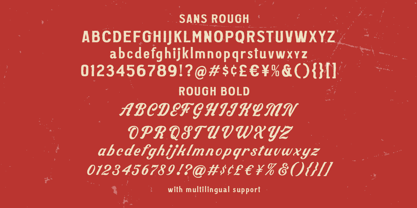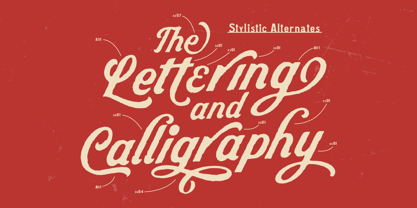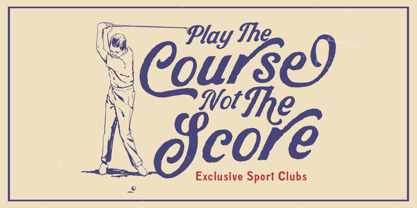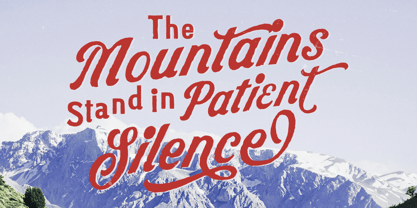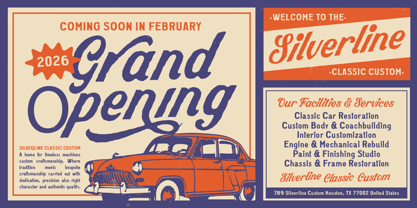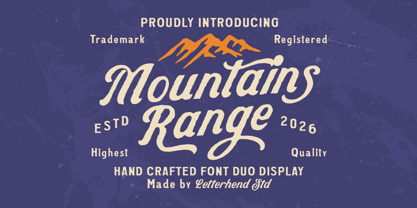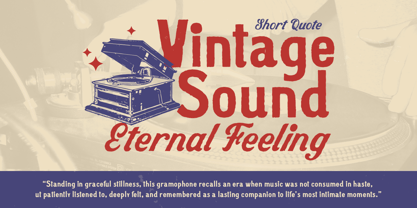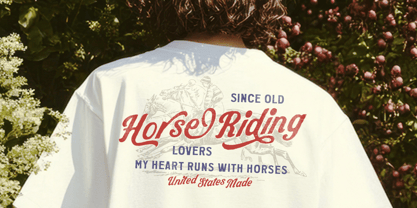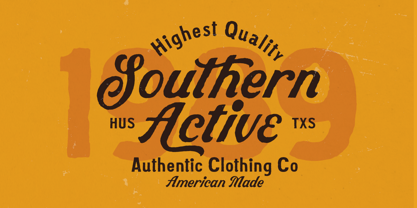
Mountains Range
by Letterhend
The Mountains Range Font Family was designed by Hendry Juanda and published by Letterhend. Mountains Range contains 2 styles and family package options.
Mountains Range is a bold hand-crafted font duo with a relaxed vintage feel. The script is smooth and confident, while the companion type keeps things solid and easy to read. Together, they give off an outdoor, classic label vibe—simple, strong, and friendly. This font works well for logos, packaging, posters, signage, and branding projects that want a timeless look with a handmade touch. Features : Uppercase & lowercase Numbers and punctuation Alternates & Ligatures Multilingual Support PUA encoded